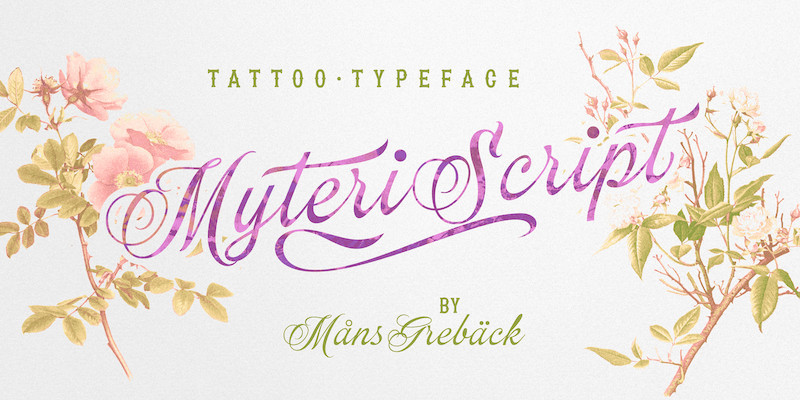
Myteri Script Font
Myteri Script is an expressive calligraphy font. Drawn and created by Mans Greback, this handwritten lettering has a wild personality and tough appearance, with tattoo-inspired shapes and vivid movements.